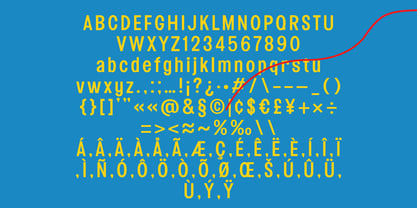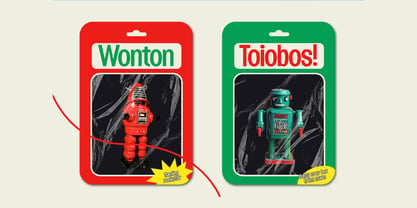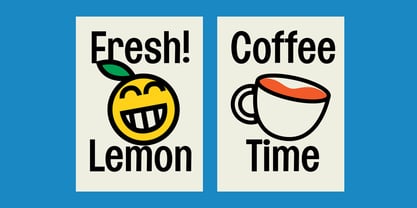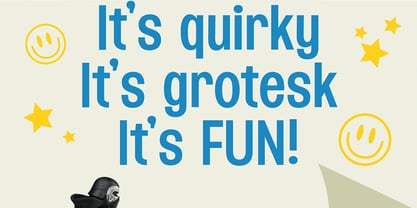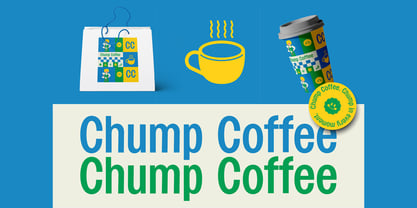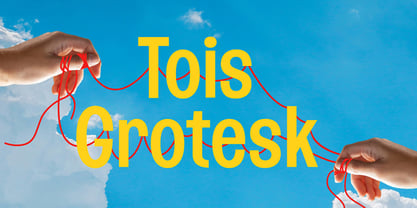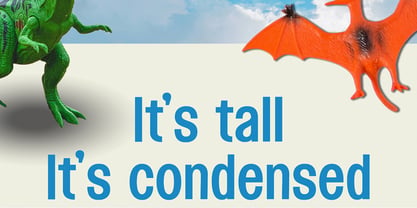
Tois
von PB Type
Die Schriftfamilie Tois wurde von Ilham Prambudiharjo Raharjo entworfen und von PB Type veröffentlicht. Tois enthält 1 Stile. Mehr über diese Familie
Tois Grotesk is a playful and distinctive condensed display typeface designed by PeanutButter Type. Its quirky and lively character makes it an excellent choice for a variety of creative applications. Whether you're designing eye-catching stickers, bold posters, unique branding materials, or other graphic projects, Tois Grotesk adds a touch of personality and flair. Its versatility and charm make it suitable for both digital and print mediums, helping your designs stand out with a fun and modern aesthetic. The typeface’s compact form ensures readability while maintaining a strong visual impact, making it ideal for projects that require both style and clarity.
Designer: Ilham Prambudiharjo Raharjo
Foundry: PB Type